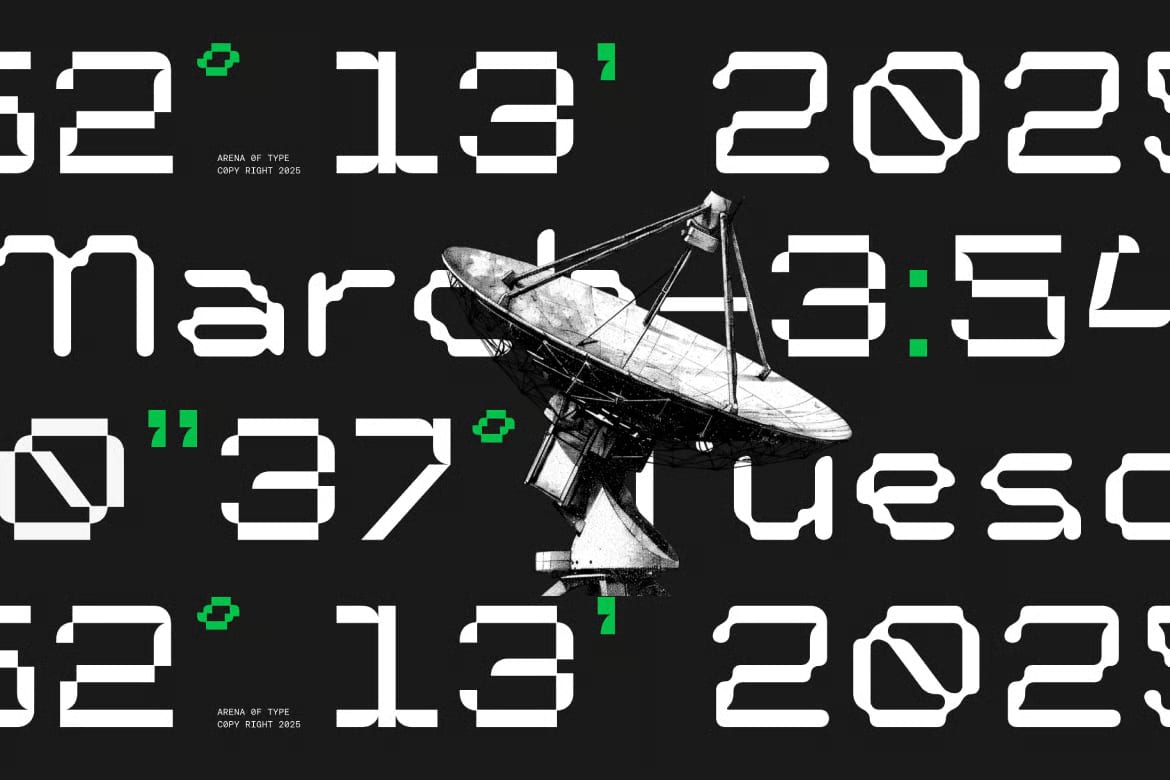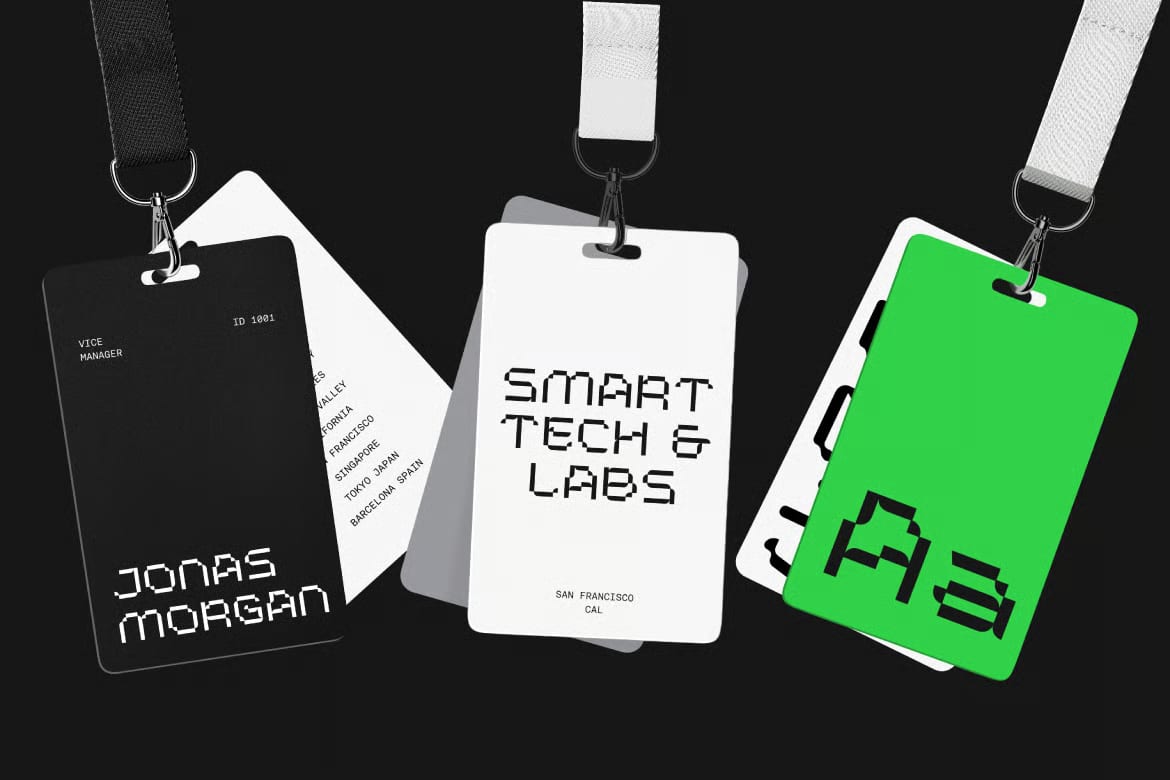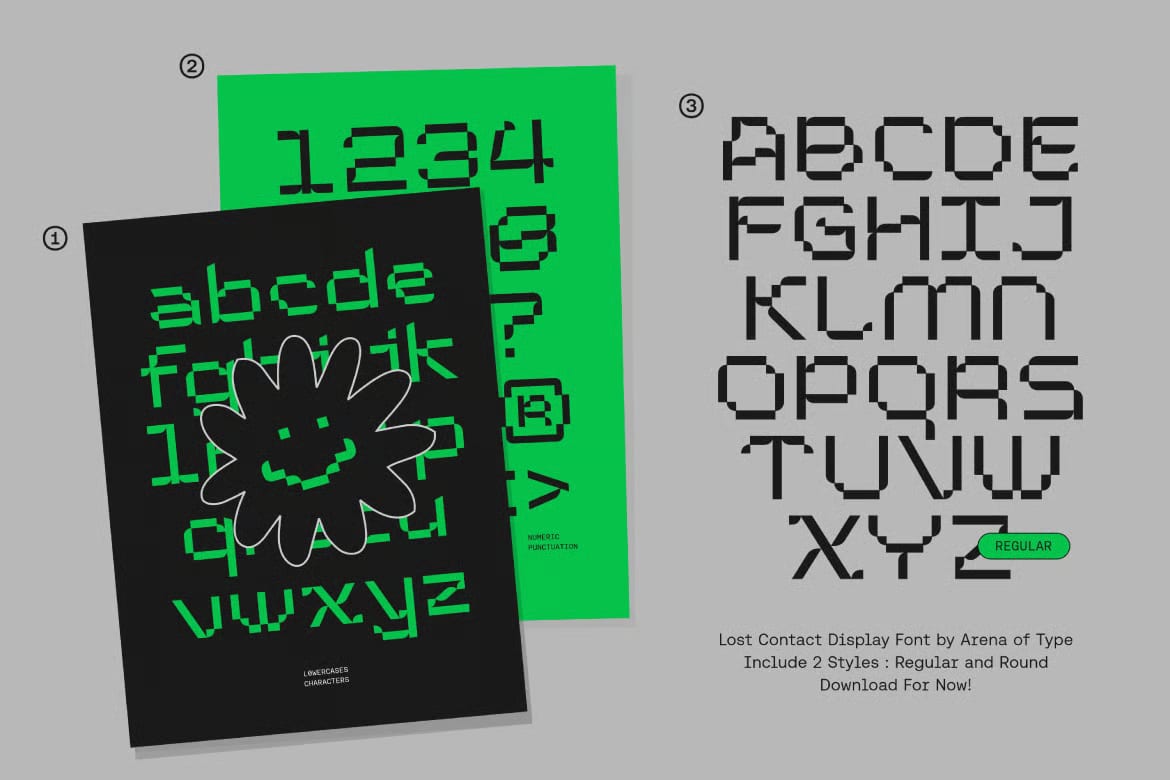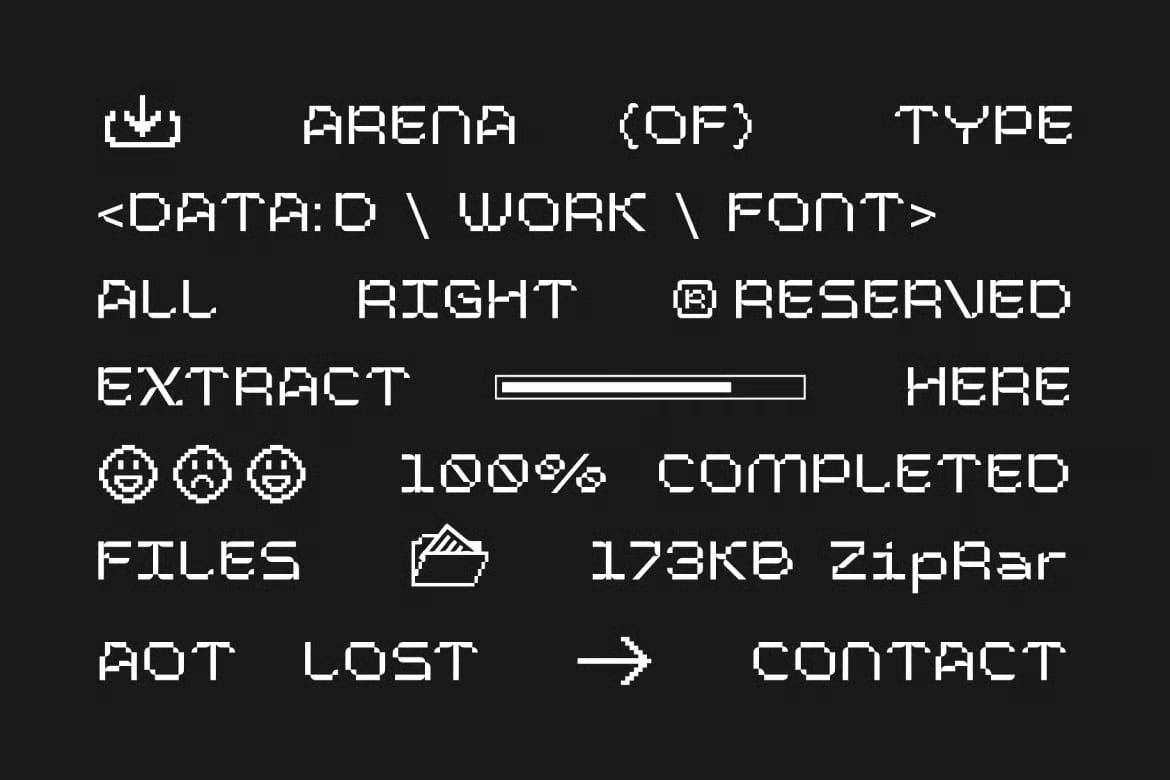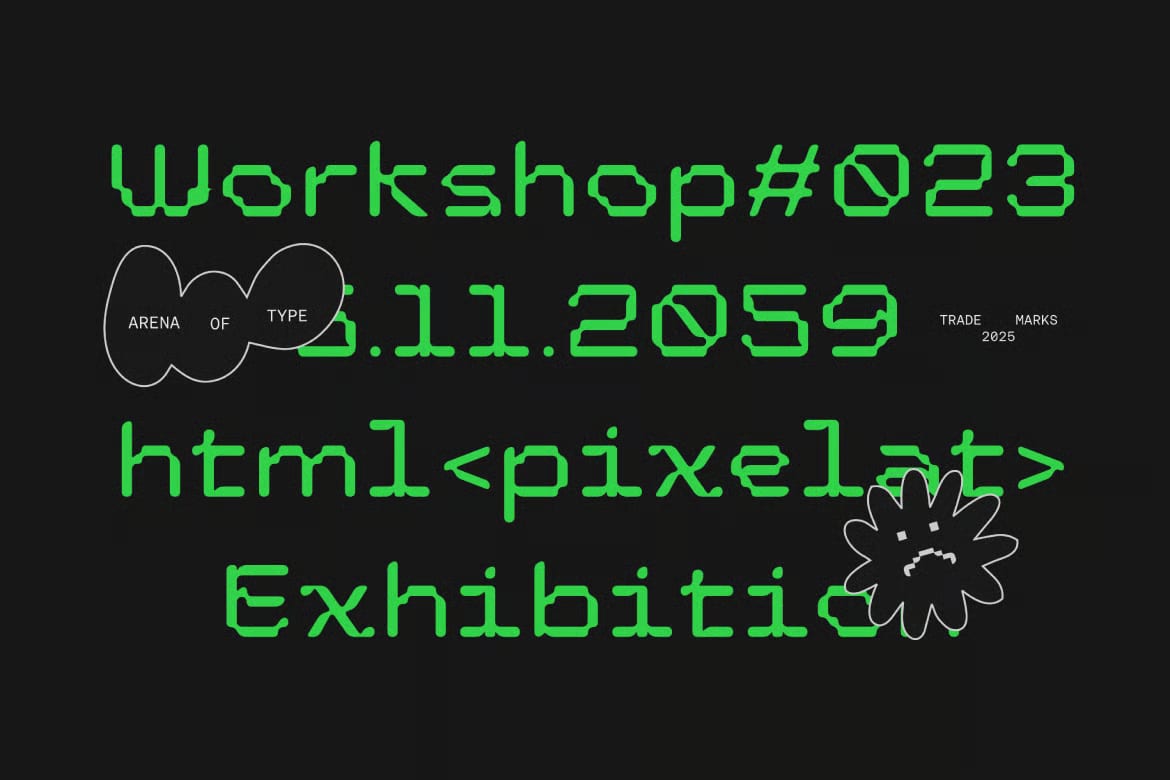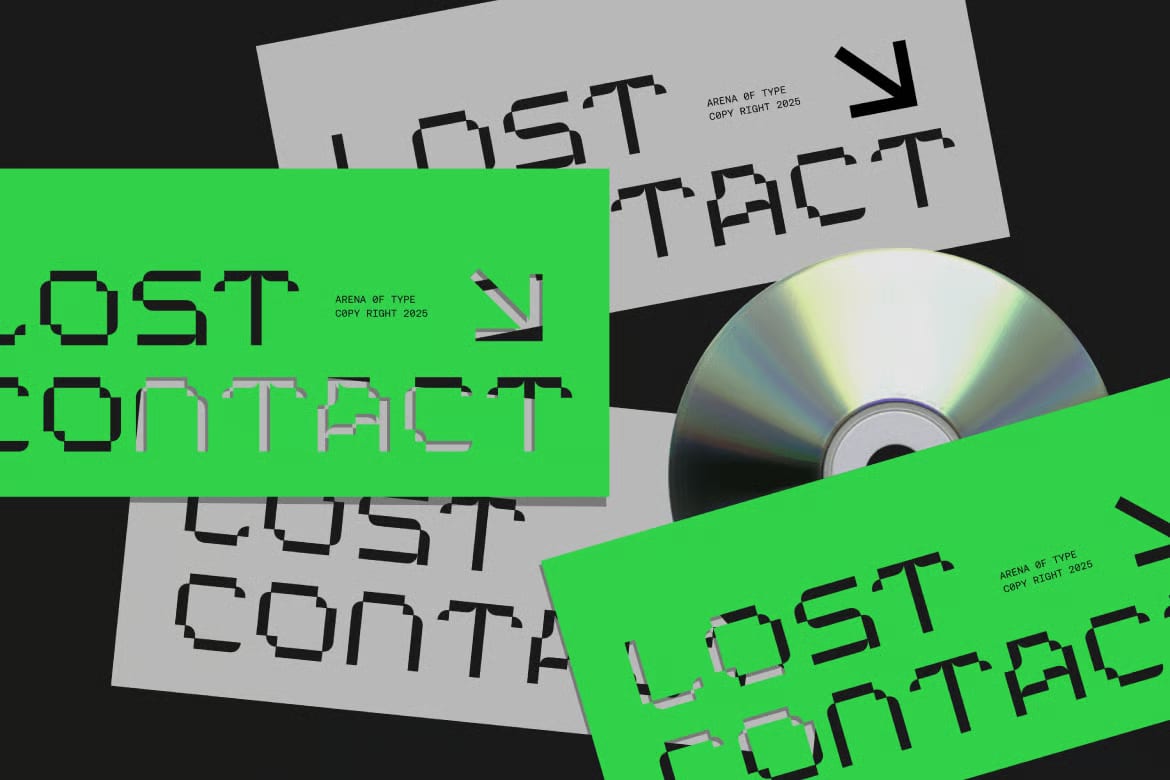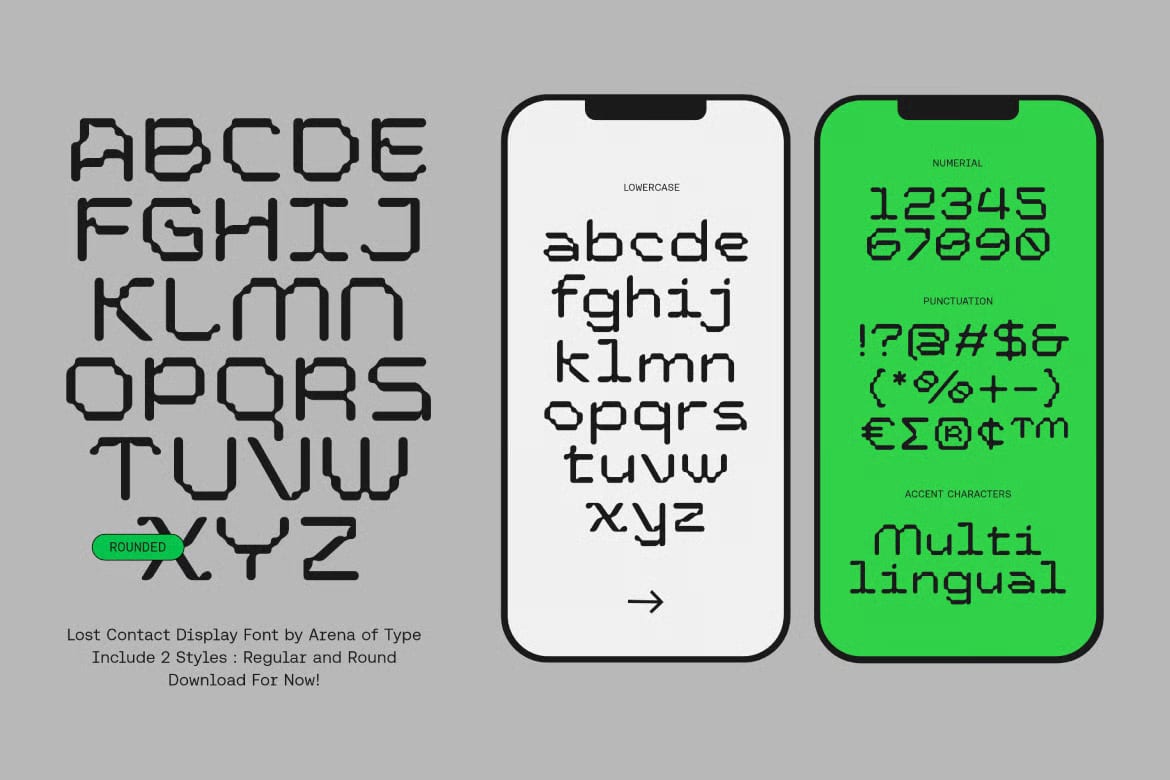
AOT Lost Contact is a pixel font with a clean retro feel and modern readability. It takes inspiration from monospaced typefaces, so the letterforms feel structured and neat while still keeping a lively digital look. The family includes two styles, Regular and Rounded, giving you a bit of flexibility depending on the mood you want in your design.
This font works well for gaming interfaces, pixel art, tech-inspired branding, UI/UX projects, and futuristic editorial layouts. It is also a good fit when you want that classic arcade-style feeling without losing clarity, which makes it easy to use in both digital and print work.